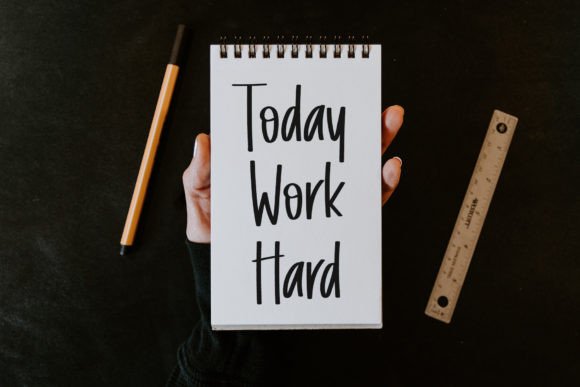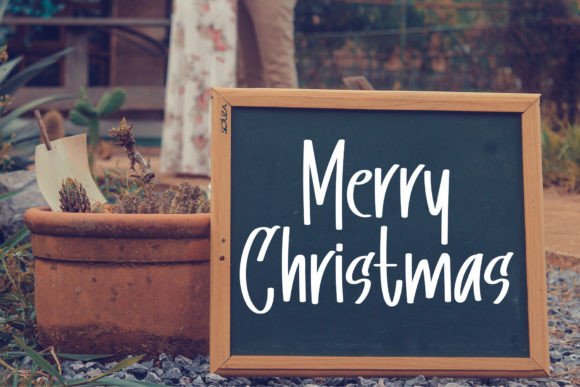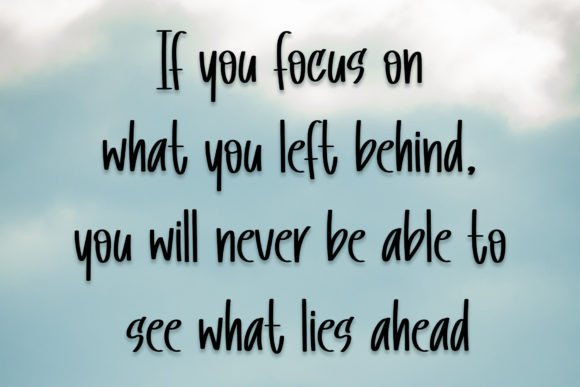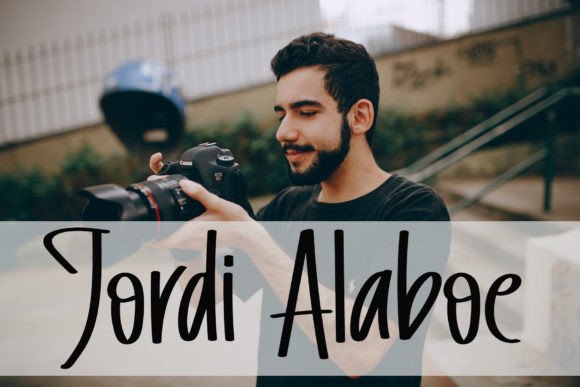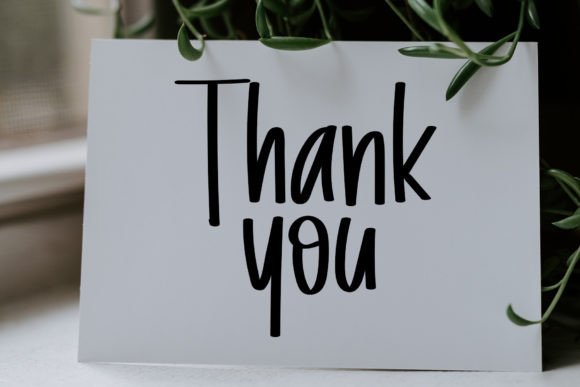
Introduction to Mindstay Font
Have you ever sat down with a blank canvas, feeling the pressure of creating something truly special for a loved one? The spark of creativity is a beautiful thing, and with the right tools, it can ignite a fire of imagination that takes your project to new heights. For designers, finding the perfect font can be the missing piece of the puzzle that brings their creative vision to life.
That’s where the Mindstay Font comes in – a stylish and modern handwritten font that’s sure to add a touch of happiness to any design. Whether you’re working on a greeting card, a branding project, or packaging design, this high-quality font is the perfect design resource to elevate your work. With its PUA encoding, accessing all the amazing glyphs and ligatures is a breeze, making it a valuable addition to any designer’s toolkit.
Key Features of Mindstay Font
- Transparent background, ideal for overlaying text on images or videos.
- Includes a range of font sizes and resolutions, making it suitable for use in various design contexts.
- Unique, modern design aesthetic, perfect for adding a touch of sophistication to any creative project.
- Designed to be highly legible, even at small font sizes, making it an excellent choice for digital displays and print materials.
Honest Review: Mindstay Font
As a designer, I’m always on the lookout for high-quality design resources to elevate my creative projects. Recently, I had the chance to try out the Mindstay Font, and I must say it’s been a pleasant surprise.
Here are some things that work well with the Mindstay Font:
- ✨ Elegant and modern design that’s perfect for creative projects that require a touch of sophistication.
- ✨ Highly legible, even at smaller font sizes, making it ideal for body text or headings.
- ✨ Transparent background, allowing for easy customization and layering.
- ⚠️ Limited font family options, which may not be suitable for projects that require a diverse range of fonts.
- ⚠️ Not ideal for projects that require a bold or dramatic font style.
Overall, I’m impressed with the Mindstay Font’s high quality and versatility. It’s an excellent addition to any designer’s toolkit, especially for creative projects that require a touch of elegance and sophistication. With its free download option and transparent background, it’s a transparent and user-friendly design resource that I highly recommend.
Tips for Getting the Most Out of Mindstay Font
Use Mindstay Font in combination with a transparent background to create a clean and professional design. Experiment with different font sizes and styles to add visual interest to your creative project.
Mindstay Font is ideal for creating business cards, brochures, and presentations. Its high-quality design makes it a great addition to any design resource, and its free download makes it accessible to designers of all levels.
Montserrat Font is similar to Mindstay Font in its modern and sleek design, but it has a more geometric feel. It’s a great alternative for designers who want a high-quality font without the need for custom design.